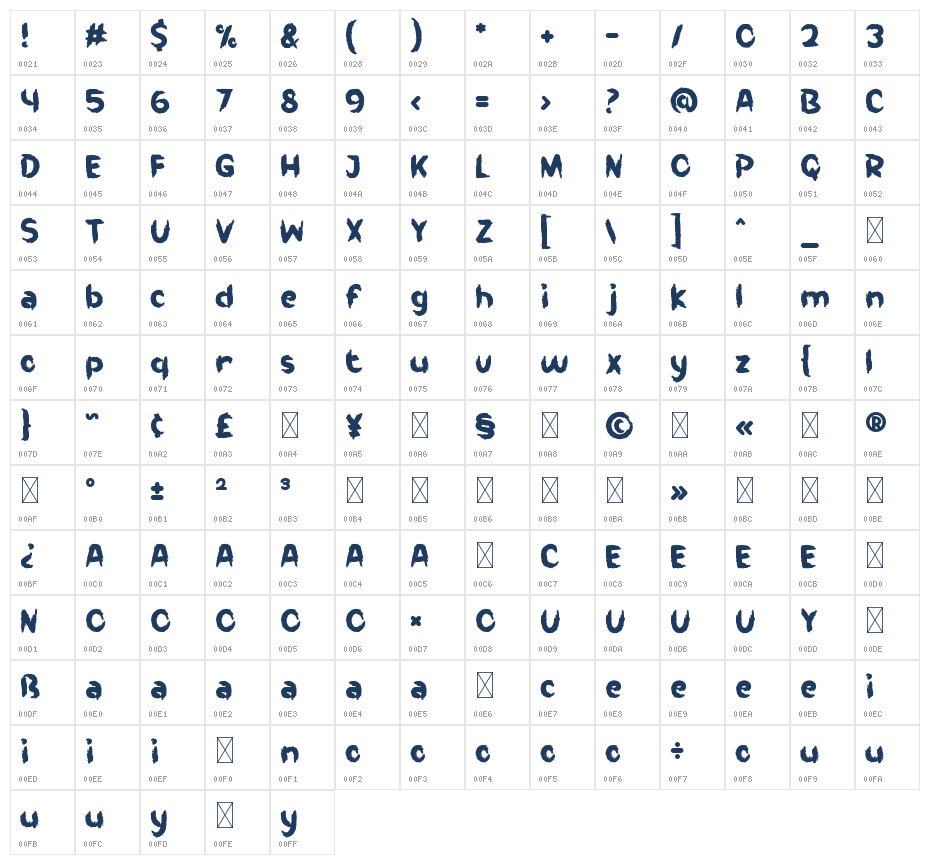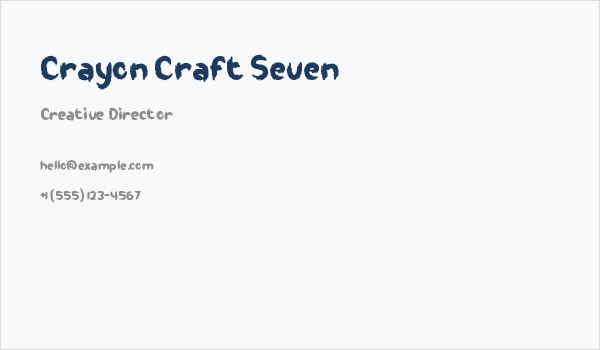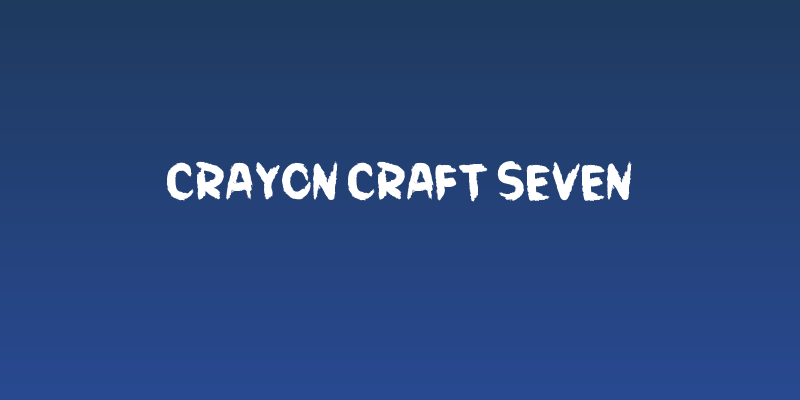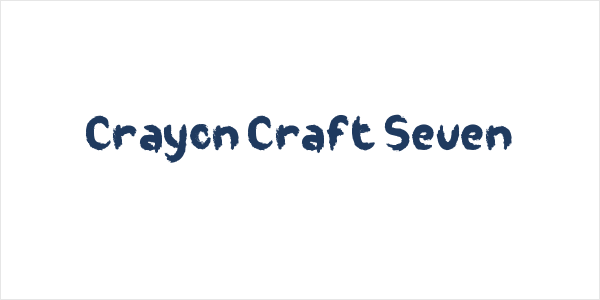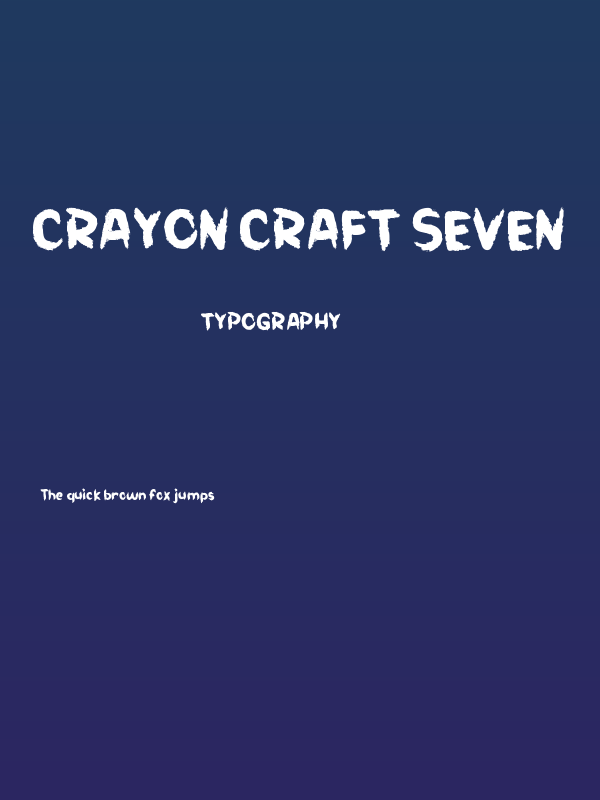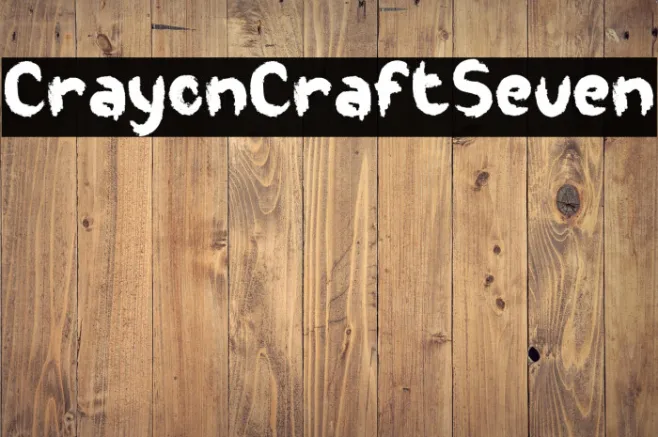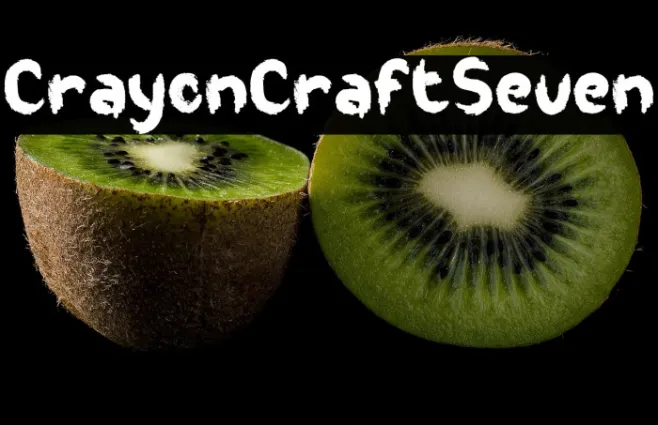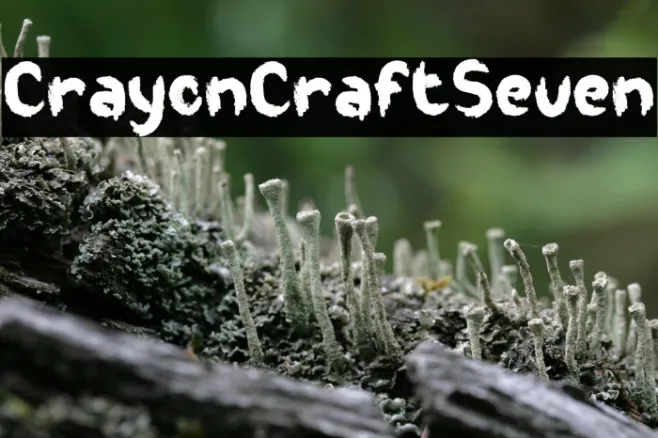
Crayon Craft Seven Font
Crayon Craft Seven Description
A bold, playful, and textured handwritten style font with irregular strokes and a casual appearance.
| Overall Style | Casual, Playful, Handcrafted |